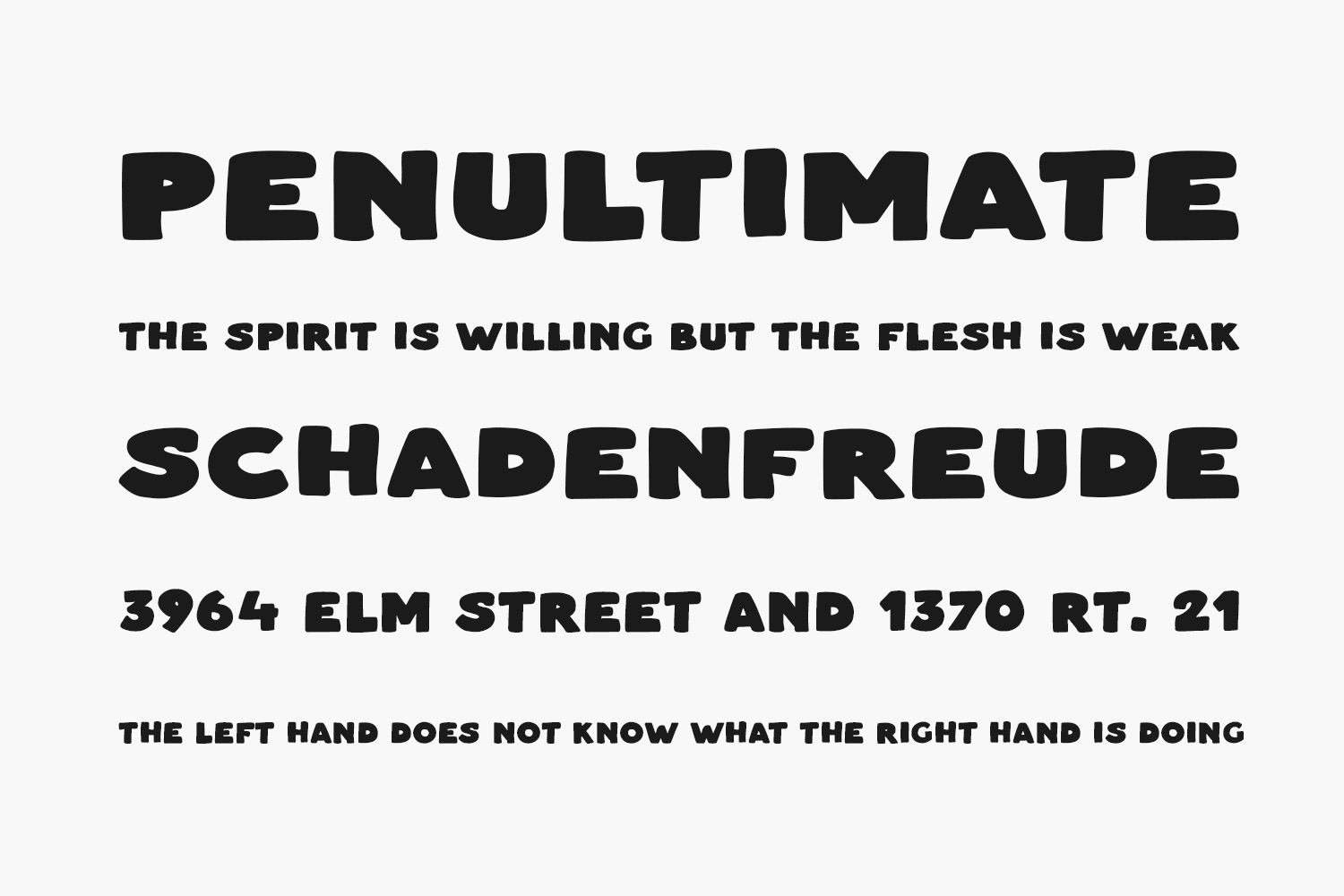
Masa Boo Free Font is an exceptionally distinctive and intriguing display font. With an eerie and slightly unsettling vibe, this font ensures that each of your designs captures attention and stands out. Masa Boo Free Font is free for personal use only. Please purchase the full version for commercial use.
Designed by Masa Aska Sanurumi